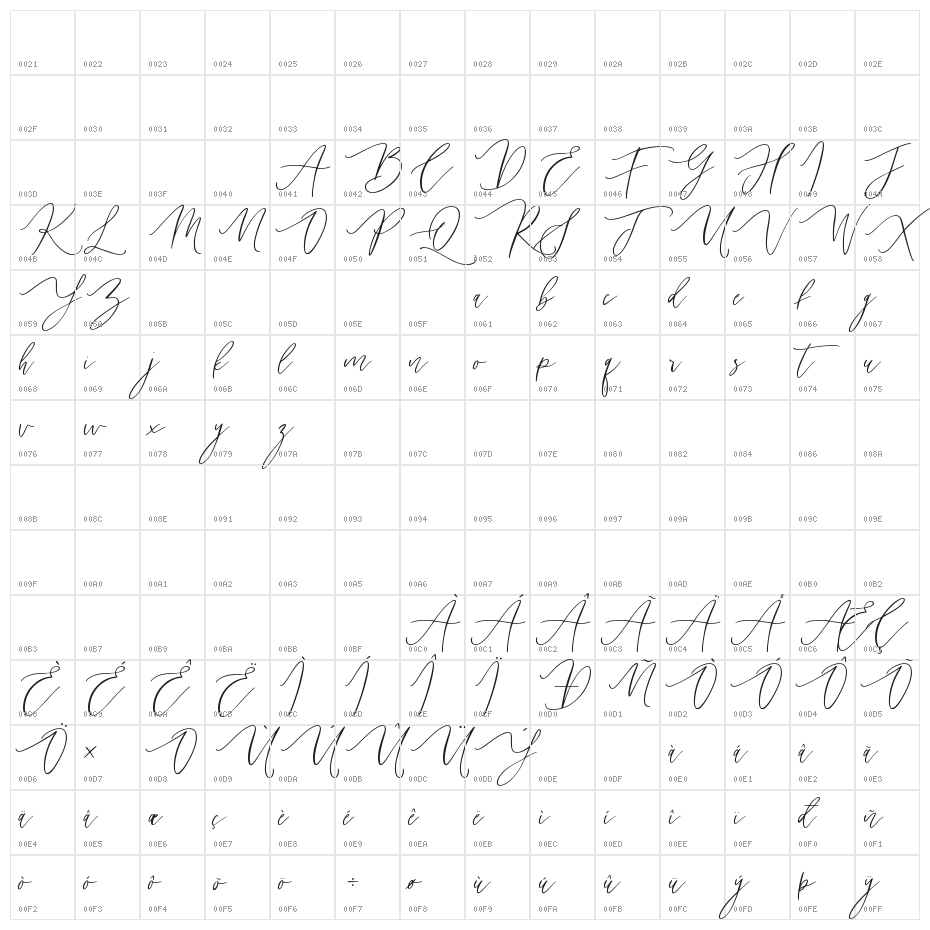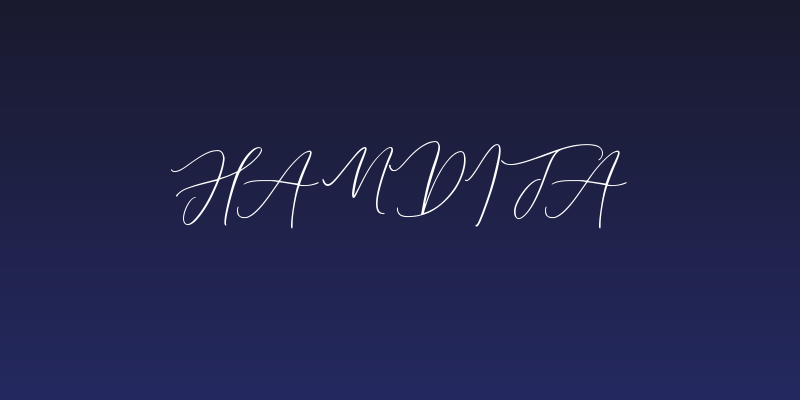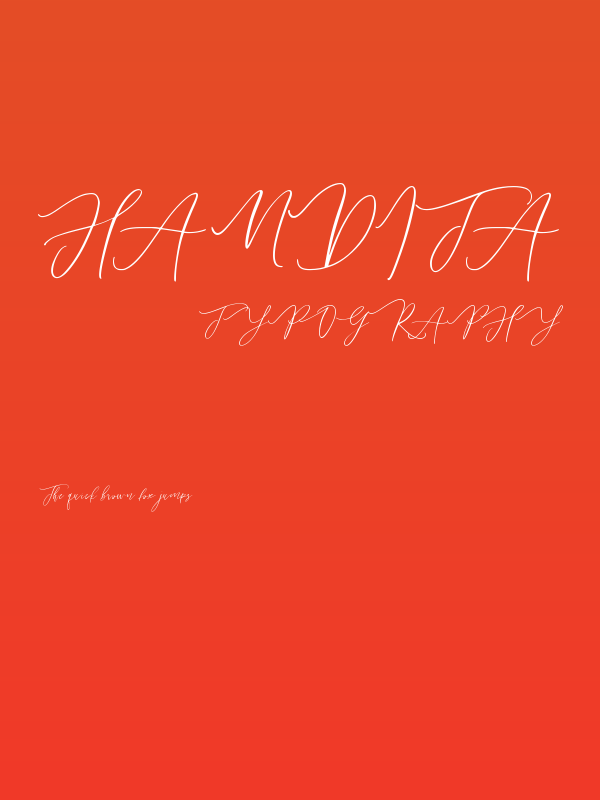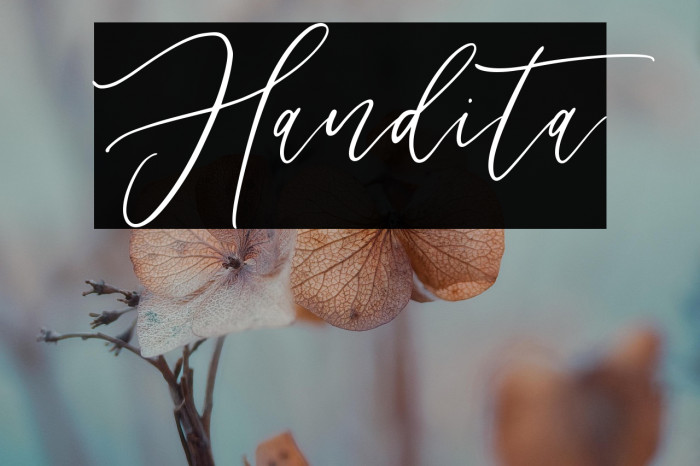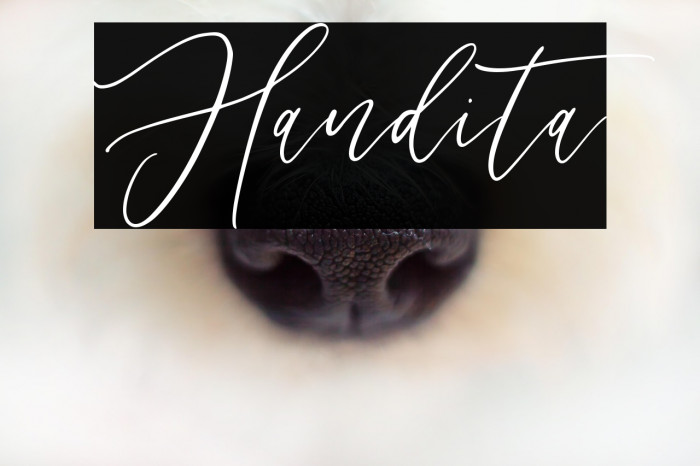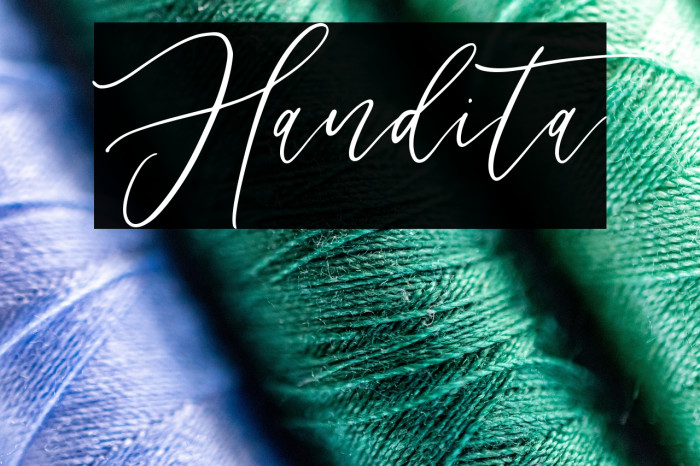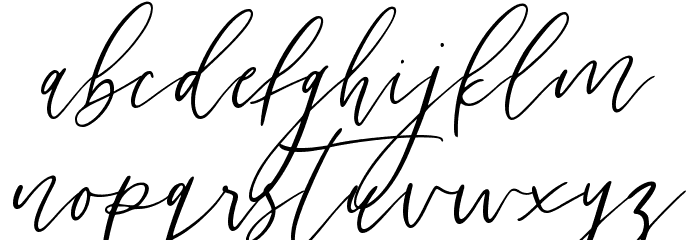
Handita Font
Handita Description
This font exudes a graceful and flowing script style, characterized by its elegant and fluid letterforms. The uppercase letters are delicately crafted with sweeping curves and loops, giving a sense of movement and sophistication. The lowercase letters maintain a consistent flow, with some letters featuring distinctive flourishes that add to the overall charm. The font's design is reminiscent of traditional calligraphy, yet it maintains a modern touch with its clean lines and balanced proportions. The varying stroke thickness adds a dynamic contrast, enhancing readability while maintaining an artistic flair.
| Proposed Projects | Ideal for wedding invitations, elegant branding, greeting cards, and high-end product packaging. |